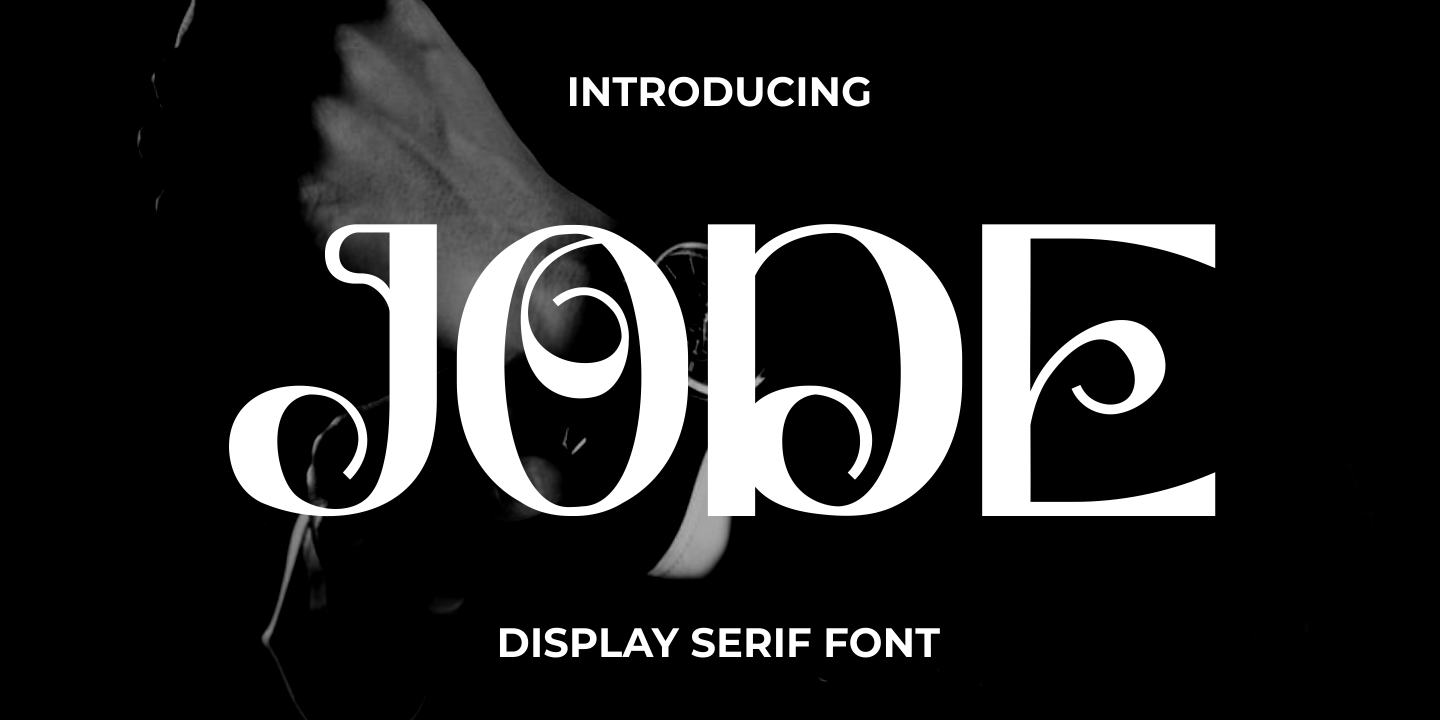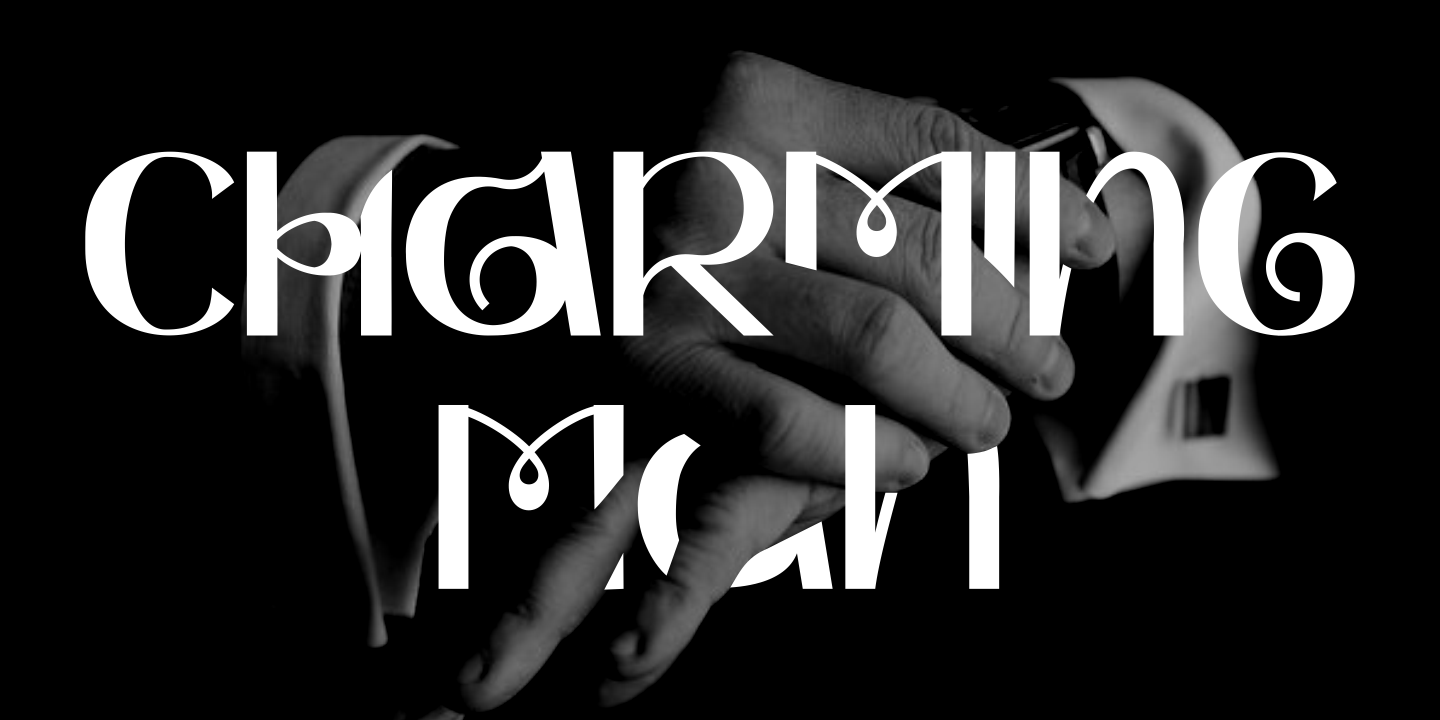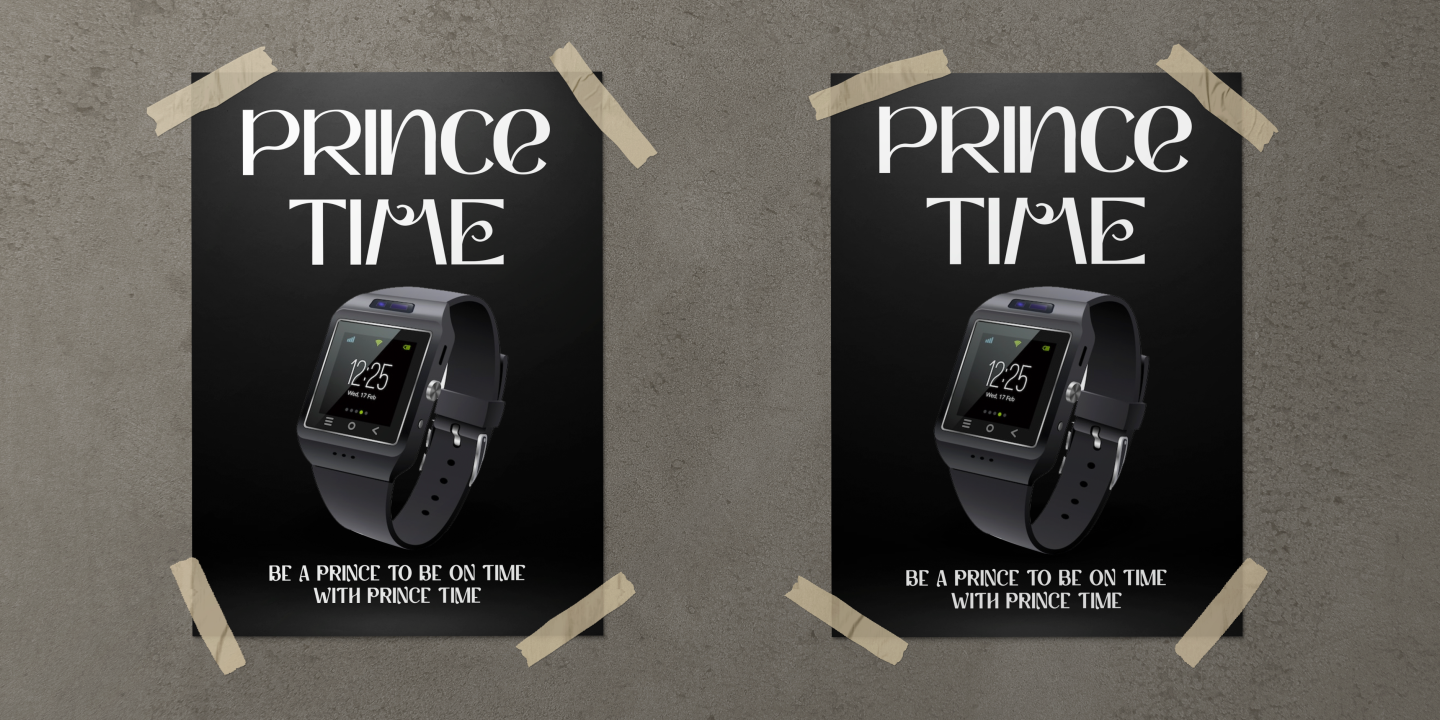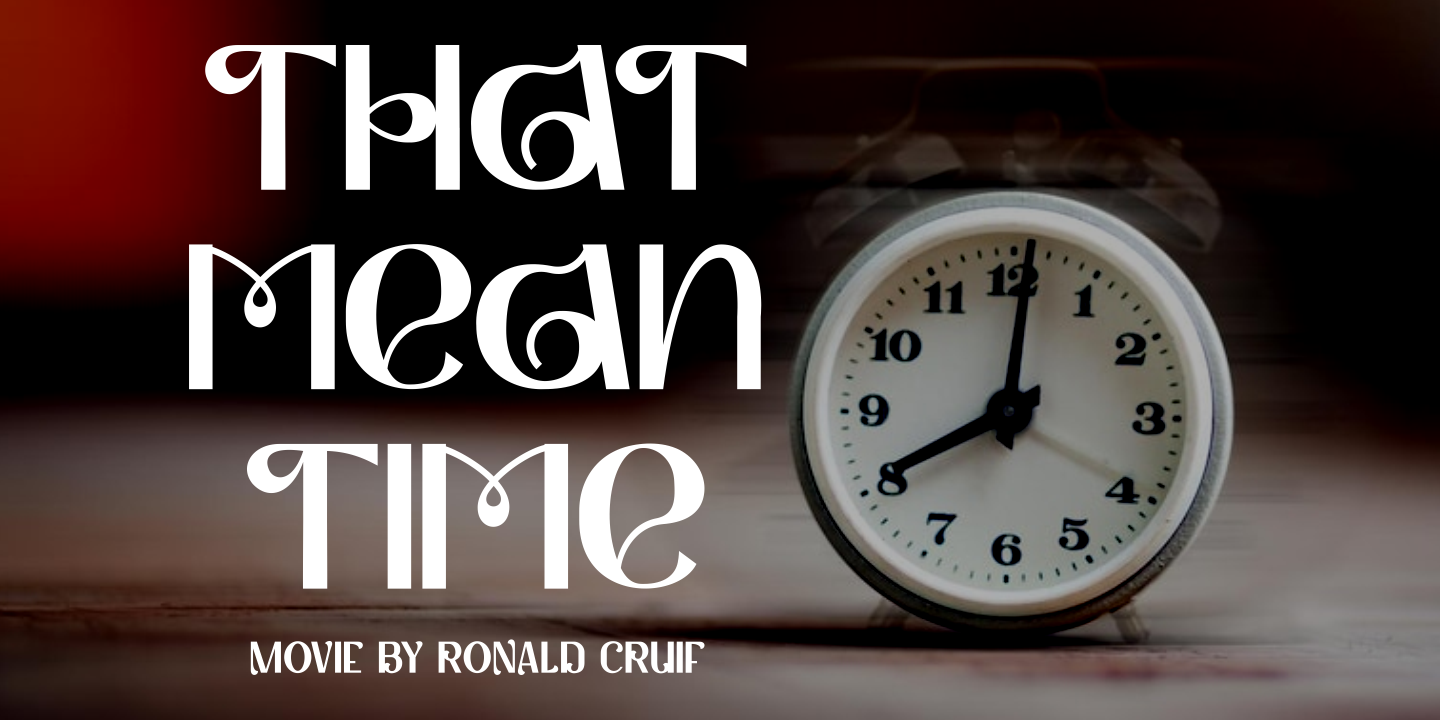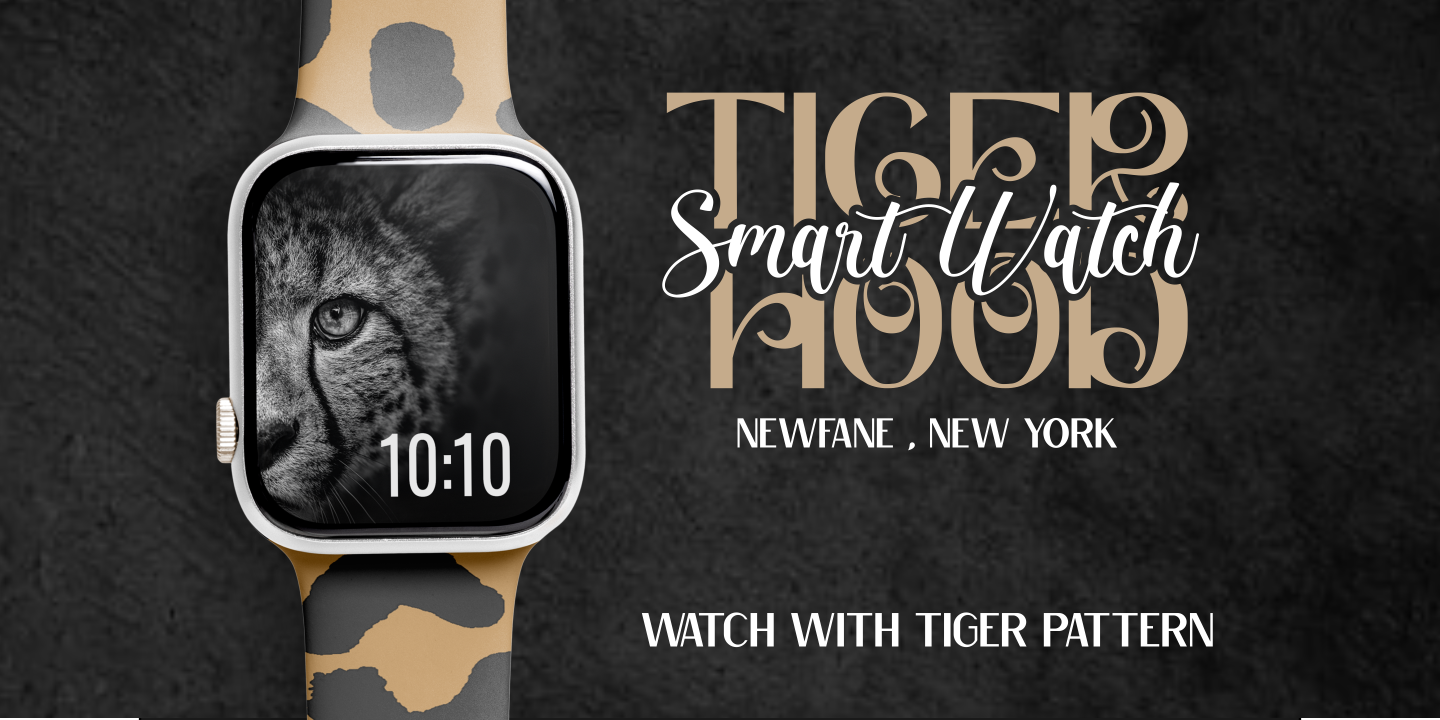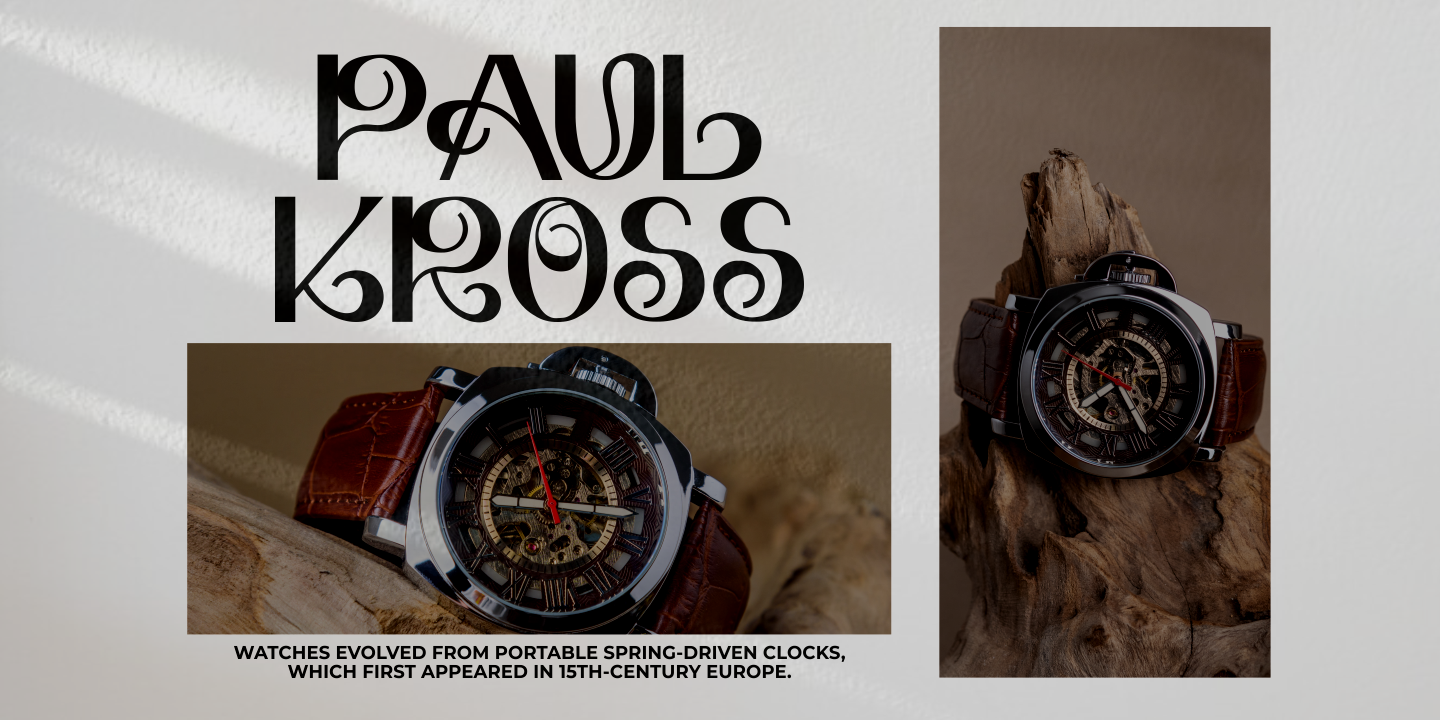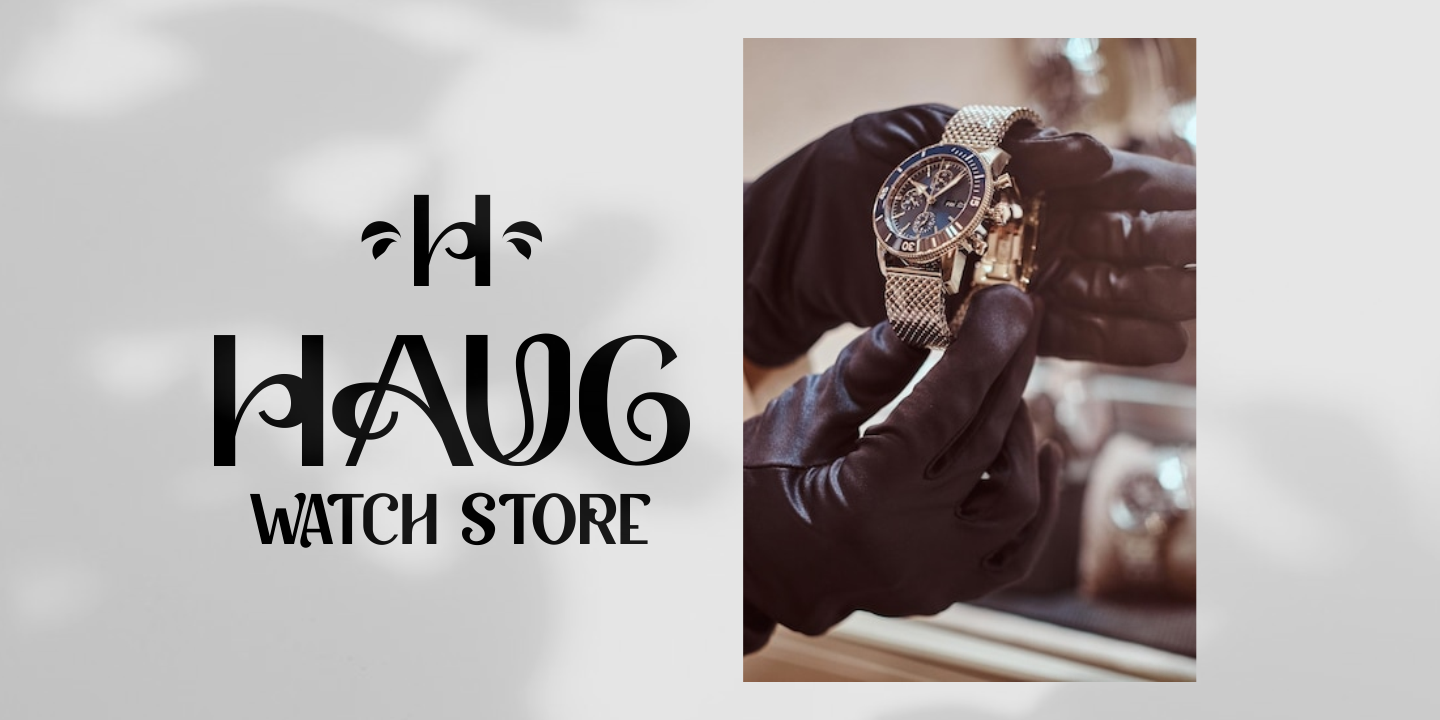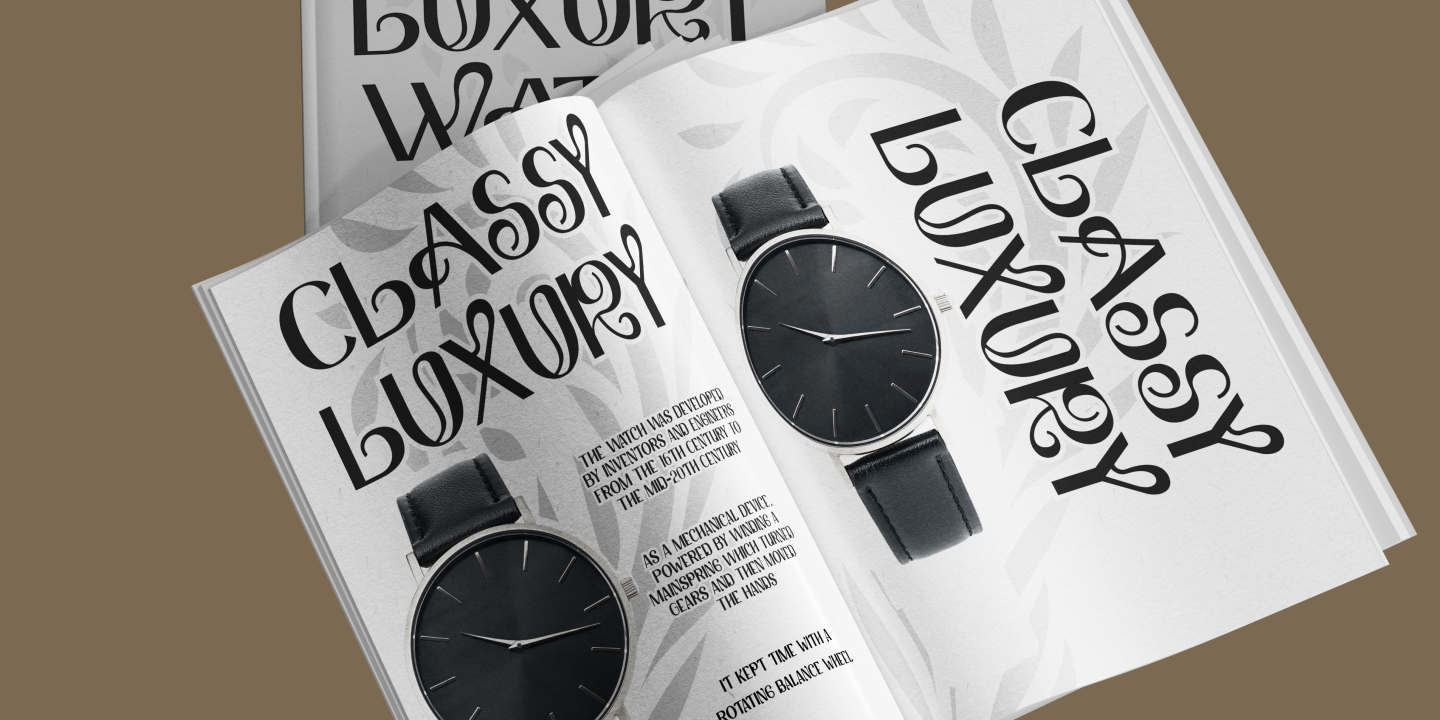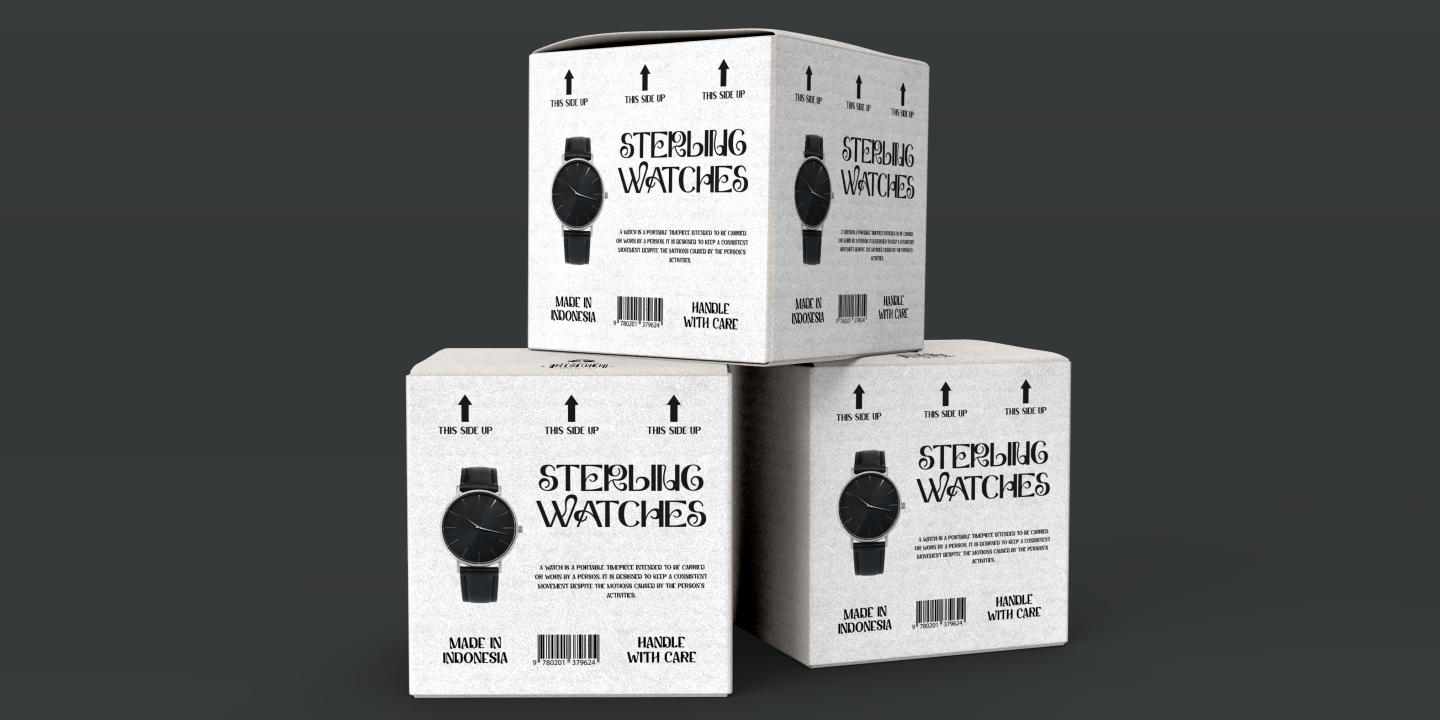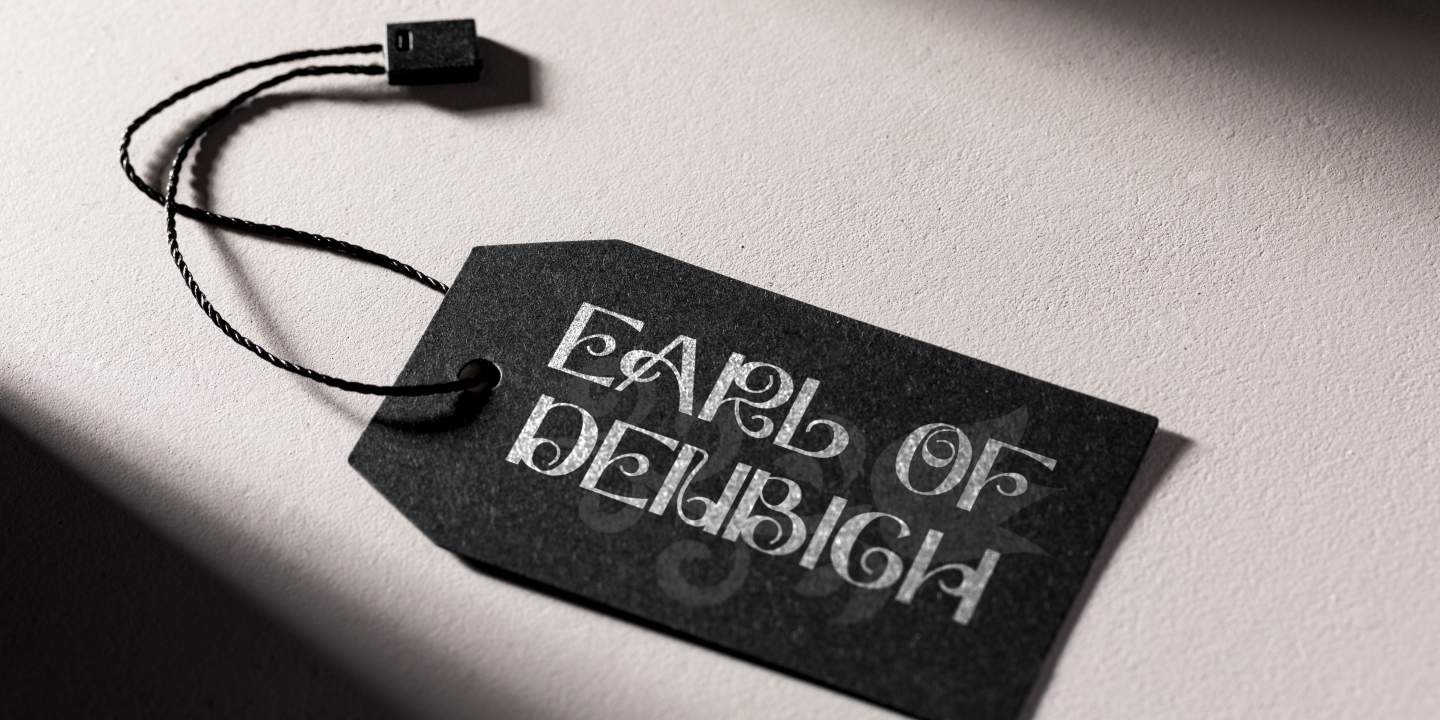
Introducing Jode, a new elegant display serif font that is perfect for creating luxurious and sophisticated designs. Inspired by luxury serif fonts used in display covers, we combined it with an elegant typeface style to create Jode. With a lot of options and alternates, you can make great display combinations for lettering.
Jode is ideal for logos, headings, covers, posters, quotes, product packaging, headers, merchandise, social media, greeting cards, and more. This font is versatile and works well with various design themes, especially those that require a touch of luxury and elegance.
Jode comes with OpenType features that include many alternates and end swashes, which can be accessed using programs that support OpenType features such as Adobe Illustrator CS, Adobe Photoshop CC, Adobe Indesign, and Corel Draw. Additionally, Jode supports multiple languages.